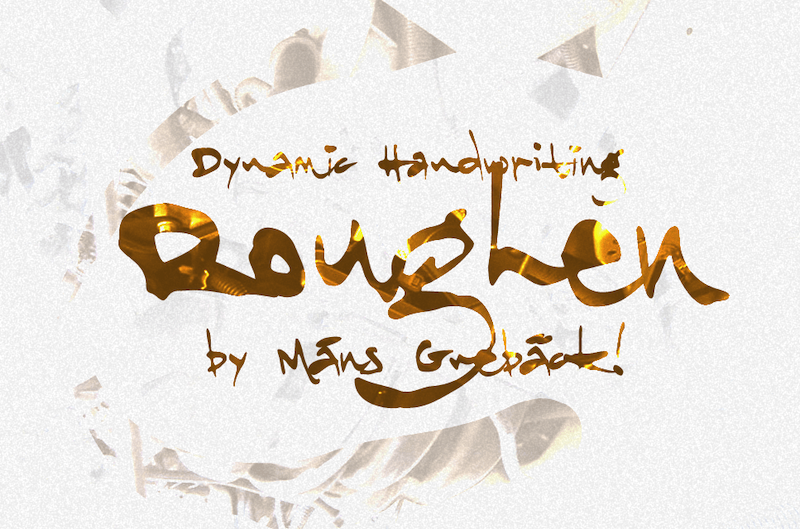
Preview and download Roughen Font. Created by Måns Grebäck in Script Brush styles with Free for personal use license.
NOTE: This font is for PERSONAL USE ONLY! To purchase a commercial license, visit: http://mn.sg/roughen Roughen has a rugged and active style, designed with a wet calligraphy pen. It contains multiple alphabets, automatically applied with contextual alternates to simulate the variation of handwriting, or manually with stylistic alternates. For questions, please visit www.mansgreback.com/faq |